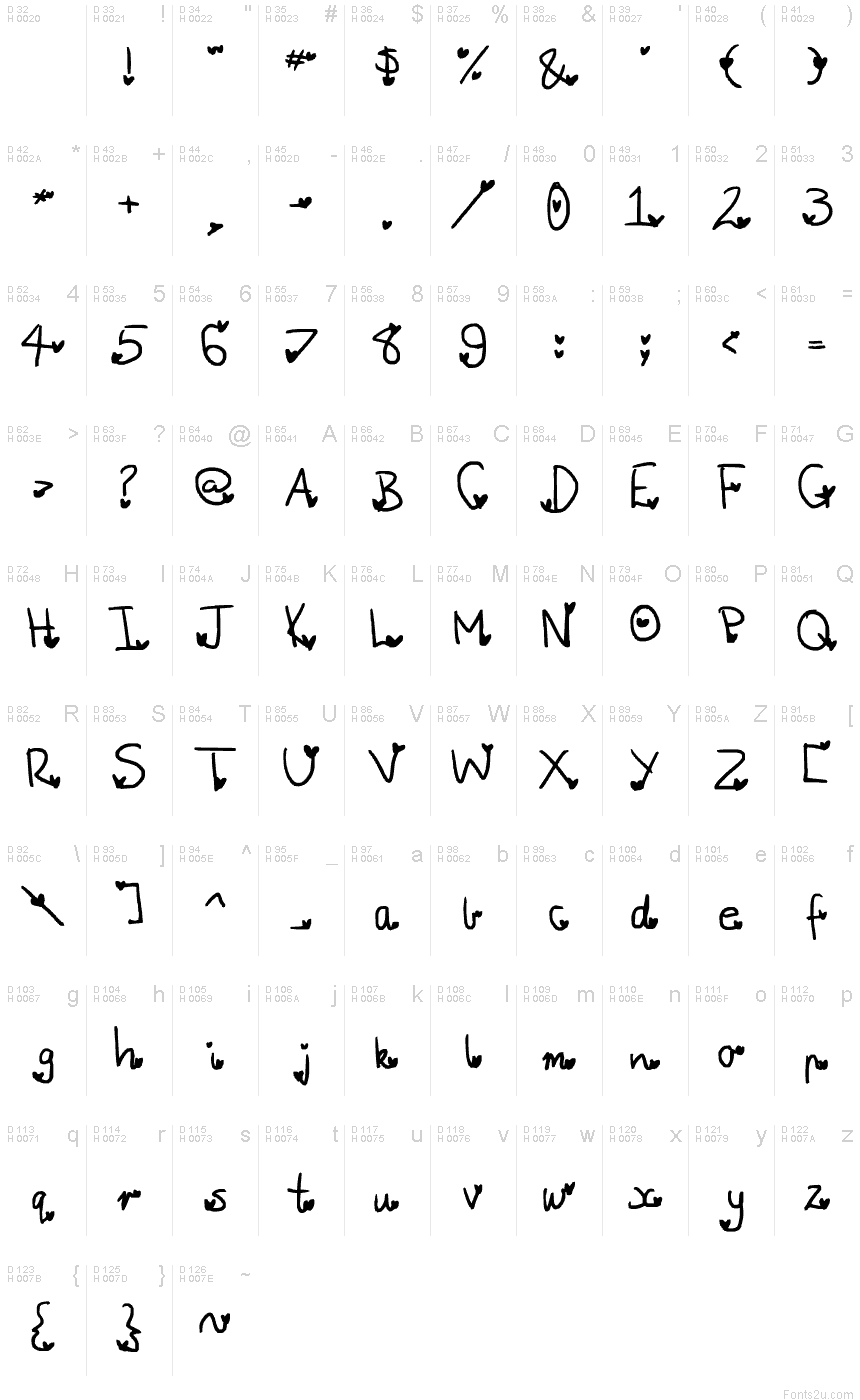
Love Letters
Love Letters font by Gogask is a free Valentine display font with a hand-drawn, decorative feel and a clear romantic theme. The letterforms shown here have a casual, sketched rhythm that suits seasonal design without looking overly formal or rigid.
Love Letters works well for Valentine cards, gift tags, love notes, wedding invitations, scrapbook titles, and party decor. Its themed shapes make it a natural fit when you want the lettering itself to carry the message, especially in short phrases, accent wording, or decorative layouts.